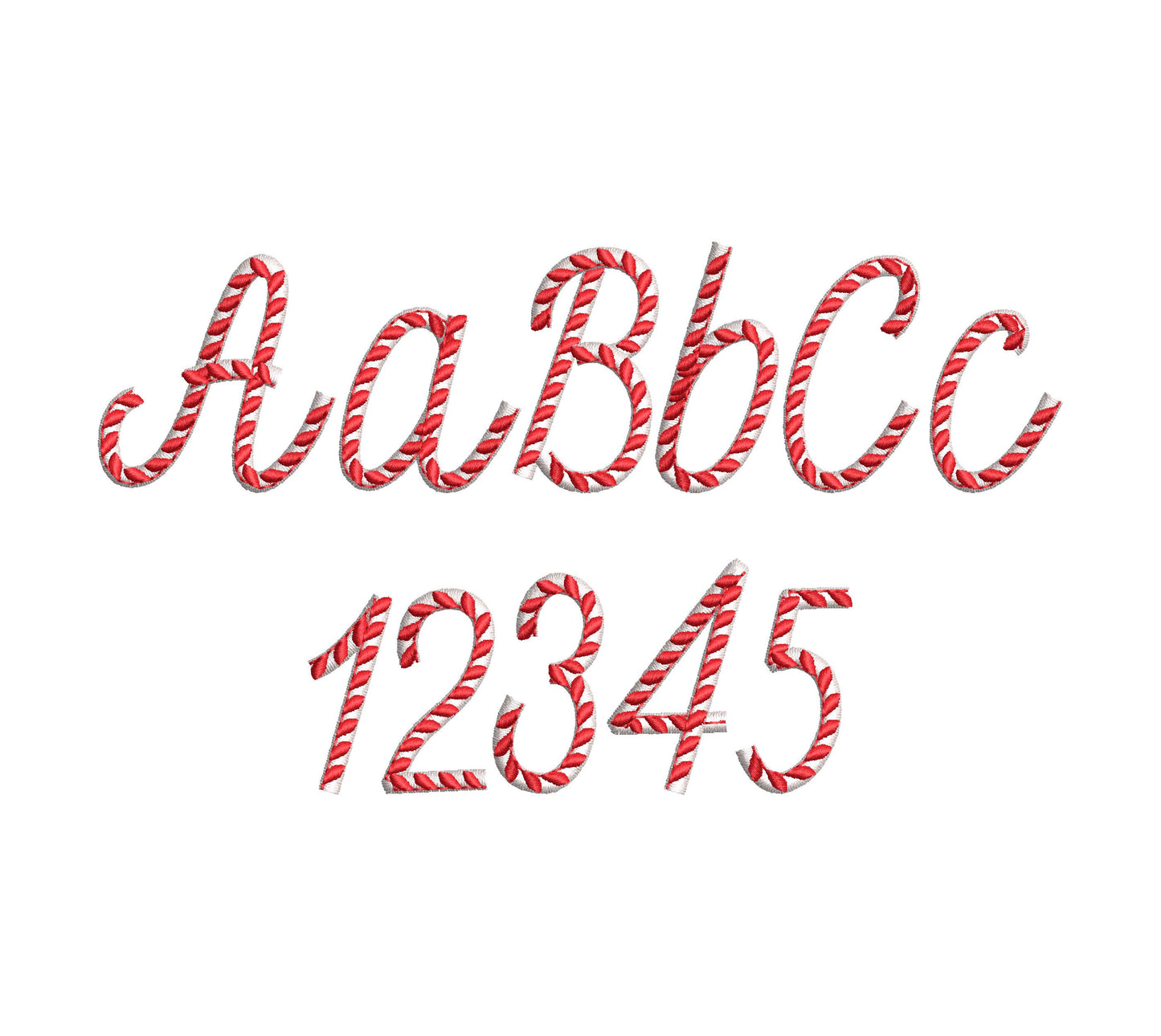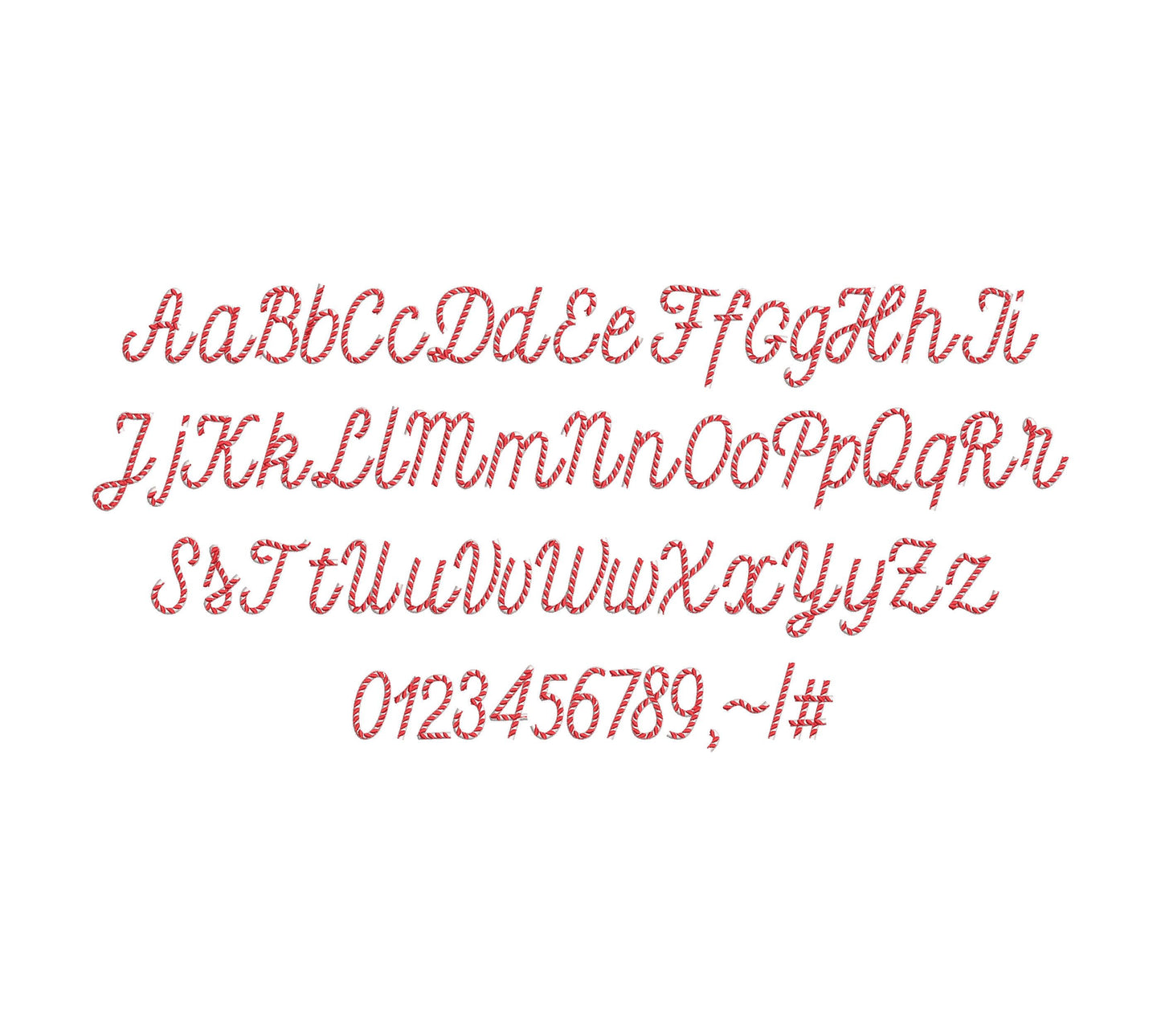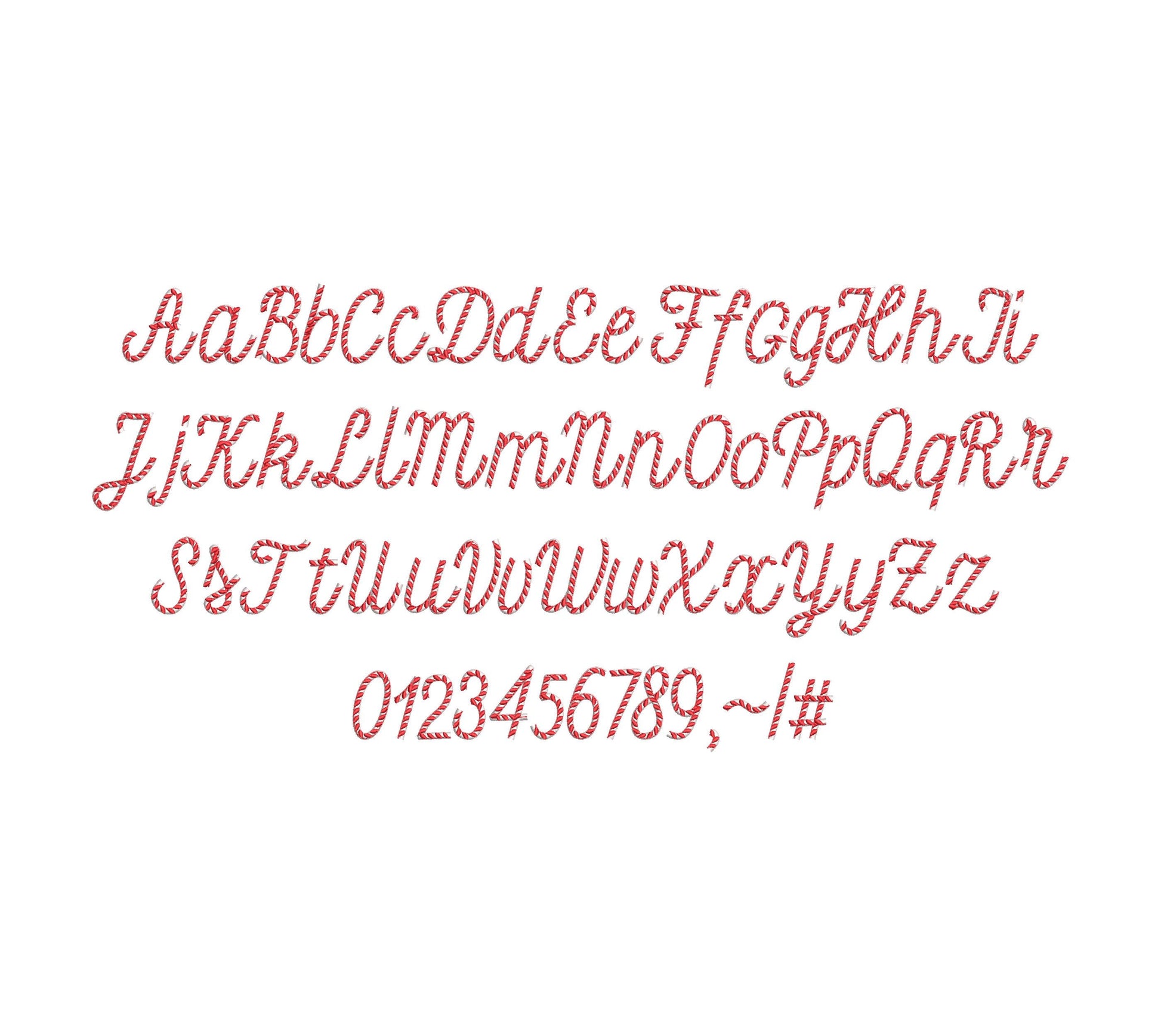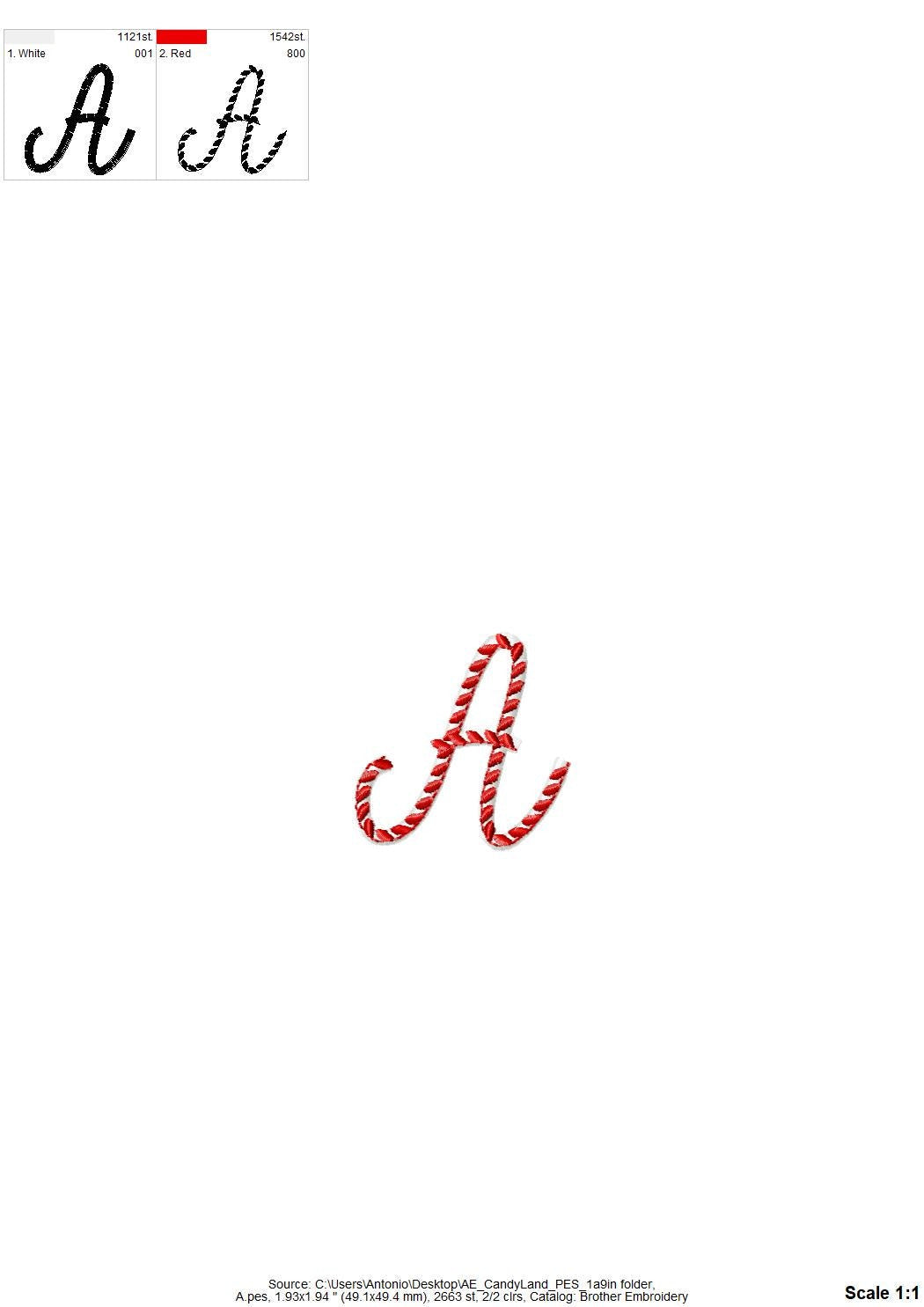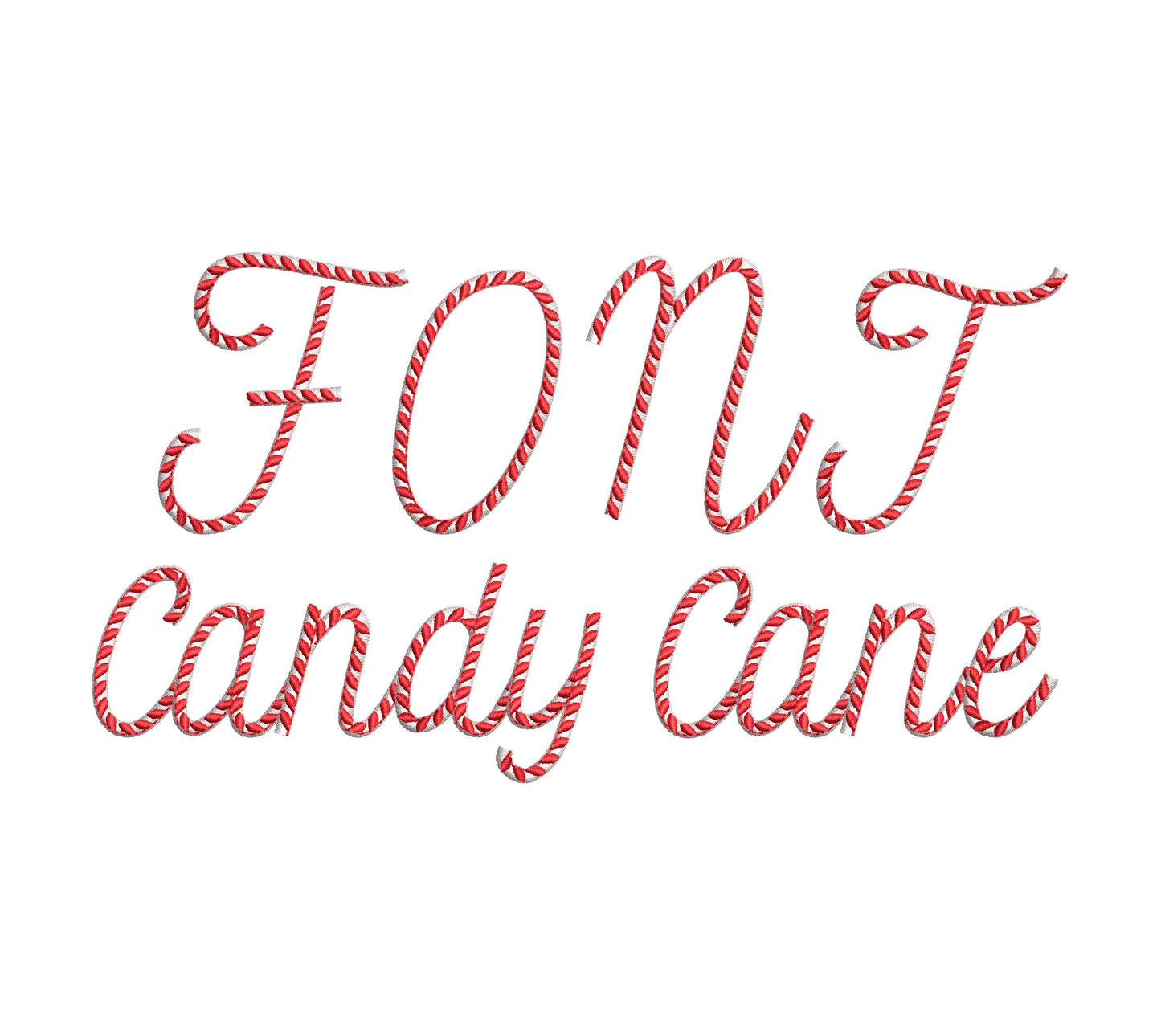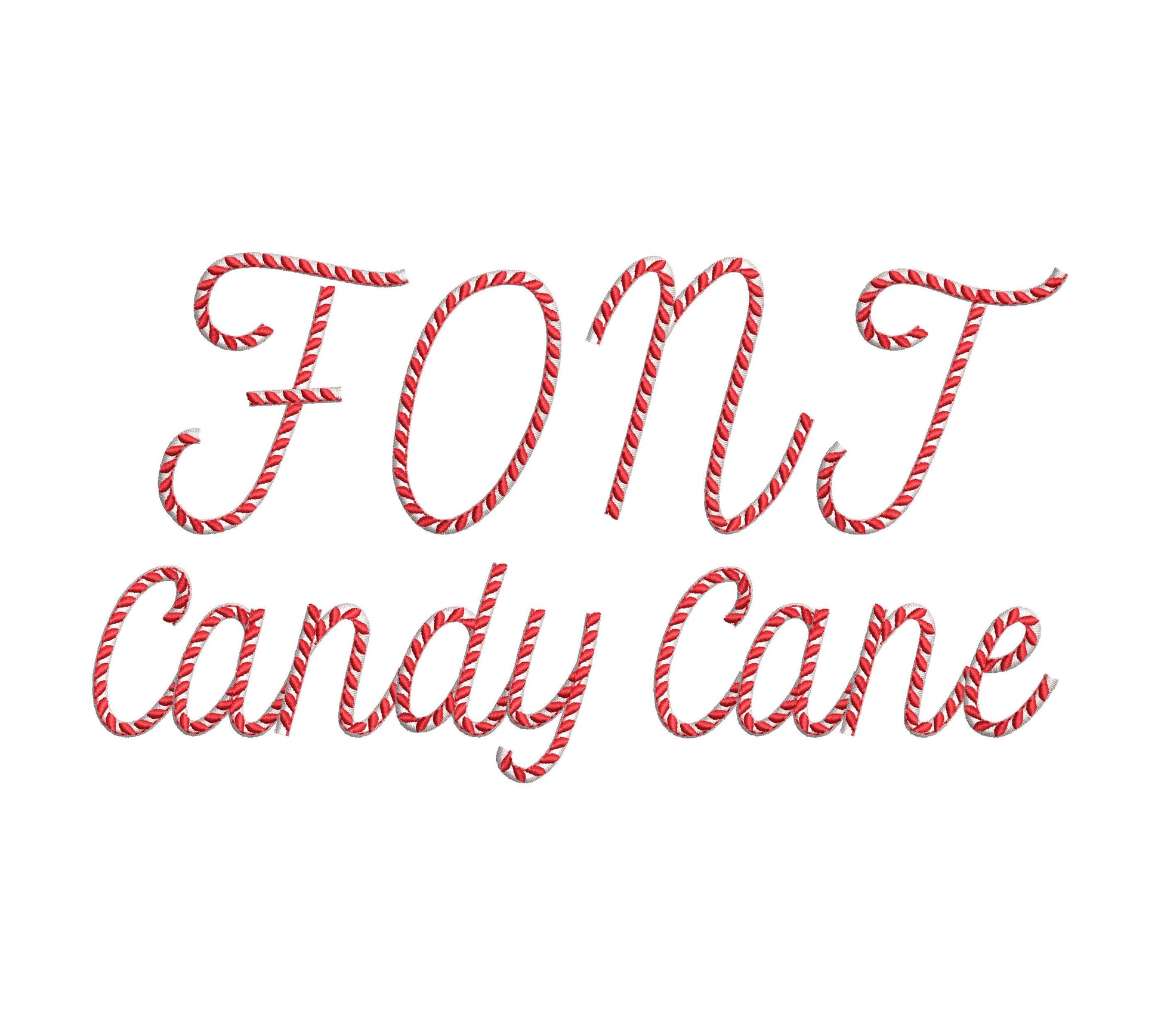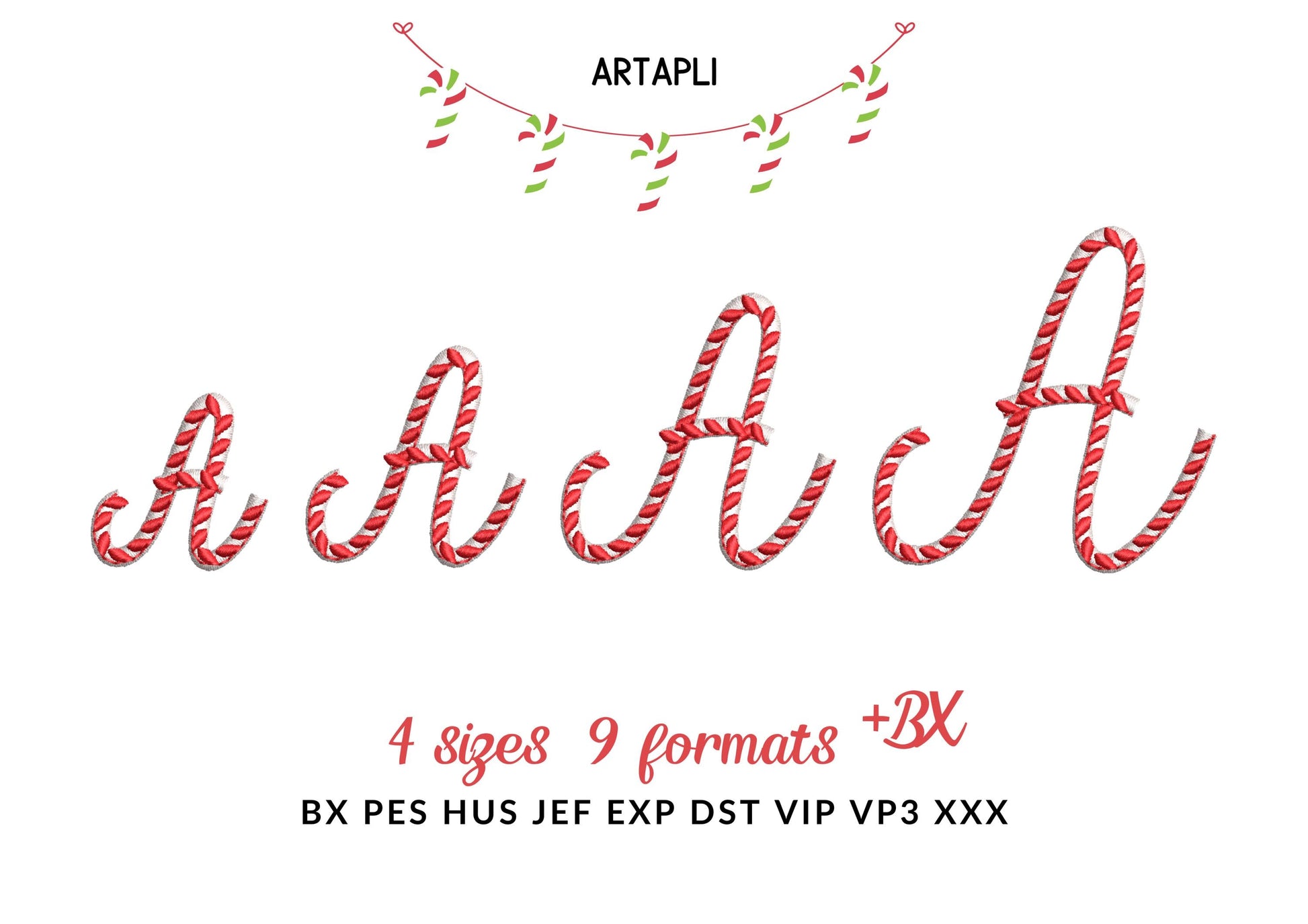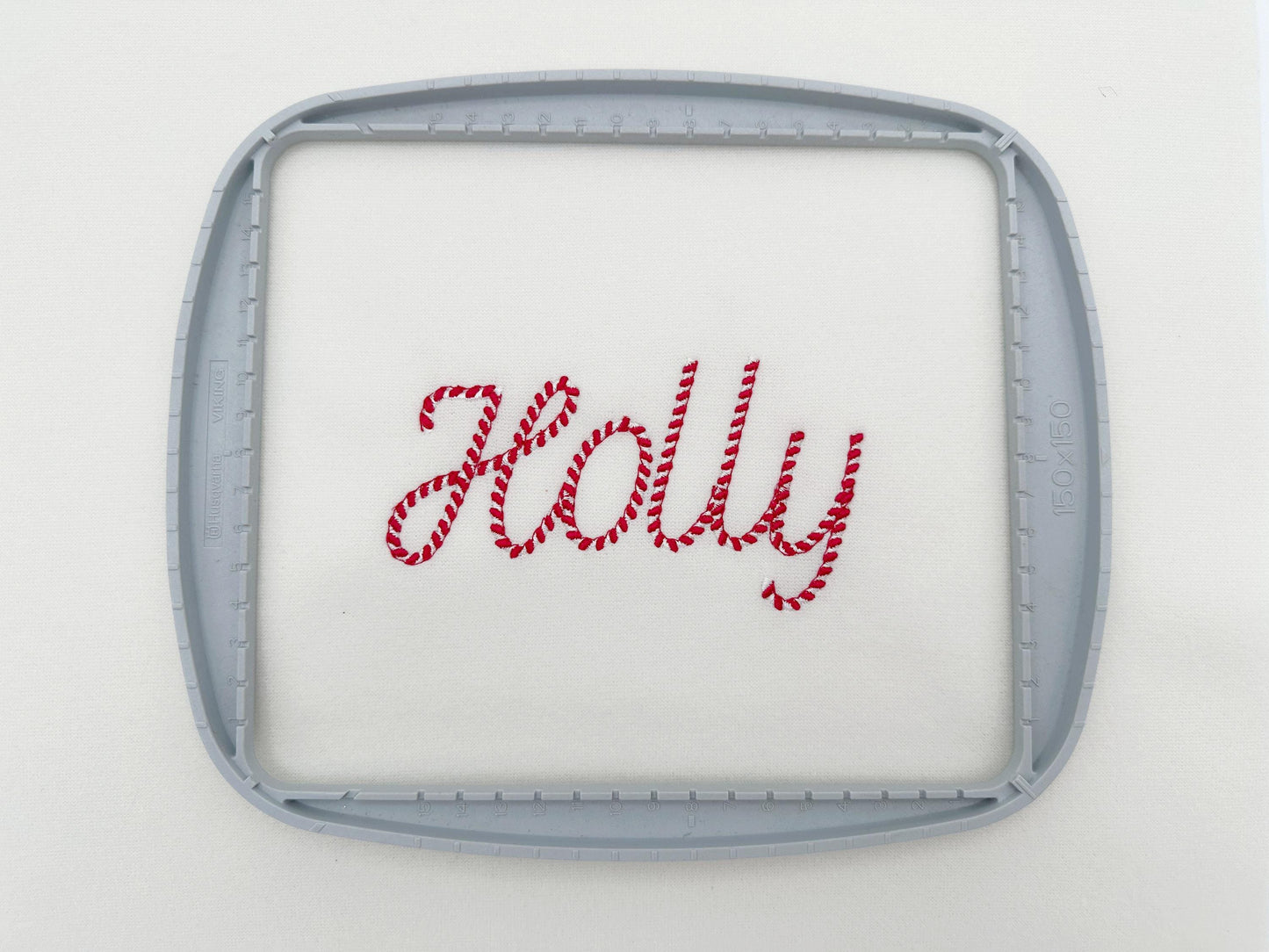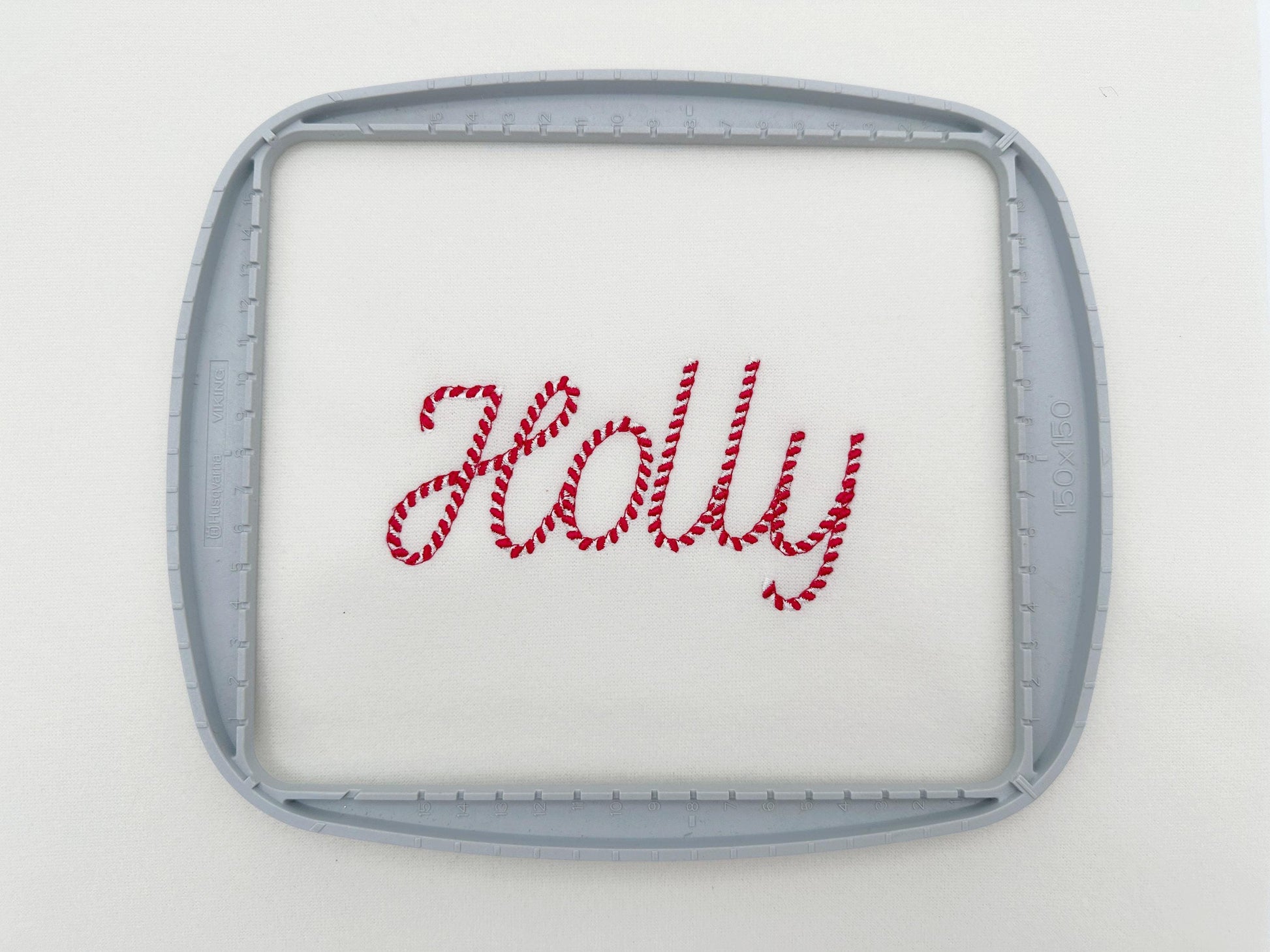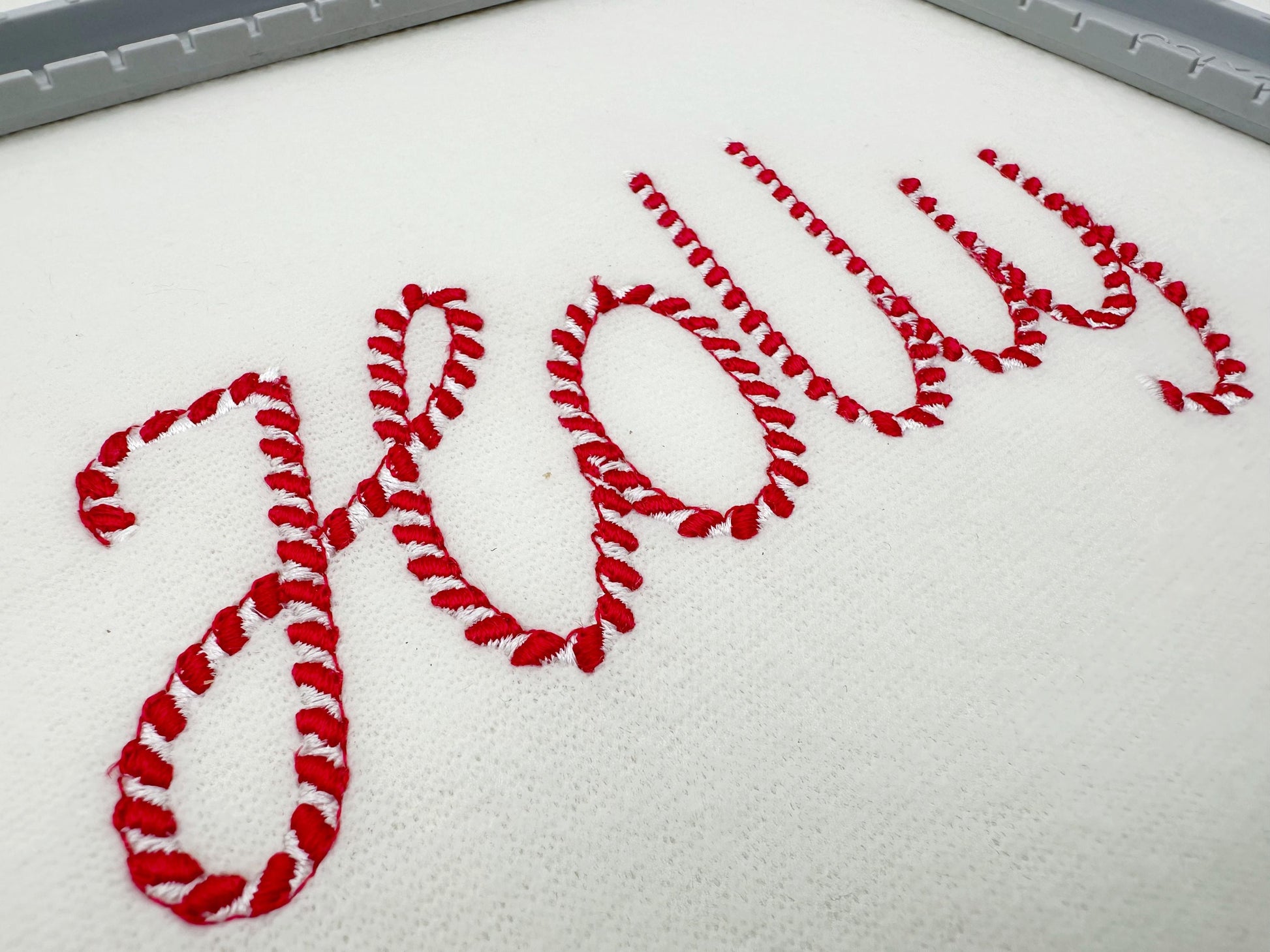
Or click to open the linkA sweet two-color candy cane alphabet in a playful handwritten style. Great for Christmas stockings, kids' clothes, ornaments and holiday monograms.
Striped candy cane letters in two colors, in four sizes: 1.2, 1.6, 1.9 and 2.4 inches. The alphabet has uppercase and lowercase letters A-Z, numbers 0-9 and a few signs.